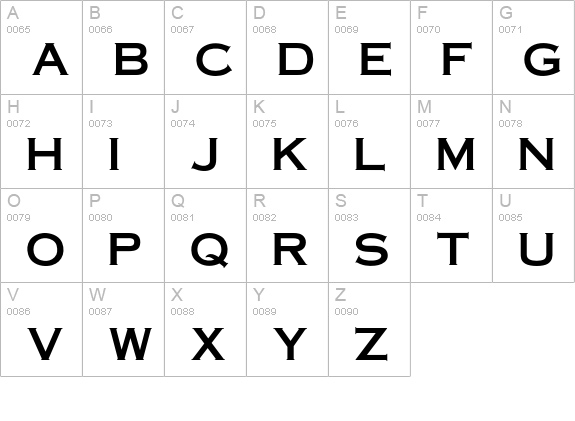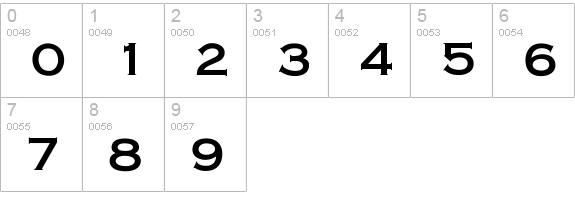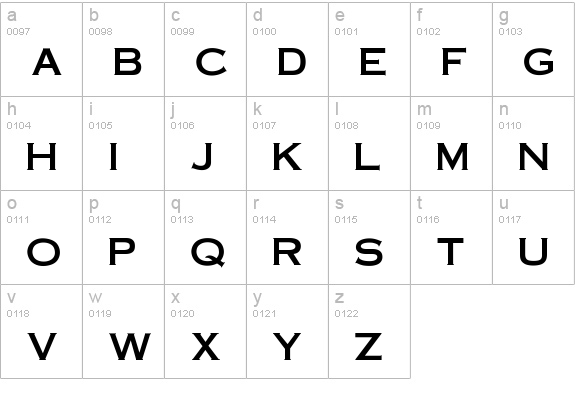
OPTICopperplate is a classic and elegant font that exudes sophistication and professionalism. Its clean lines and timeless appeal make it perfect for a wide range of design projects, from wedding invitations to business presentations. The font's balanced proportions and graceful curves give it a sense of refinement that is sure to elevate any text it is used for. What sets OPTICopperplate apart is not just its beauty, but also the fact that it is available for free. You can easily download this exquisite font at FontsMarket.com, where it is offered as a complimentary resource for designers and creatives looking to add a touch of class to their work. Whether you are working on a personal project or a client commission, OPTICopperplate is a versatile and stylish choice that will make your text stand out with its sophisticated charm.